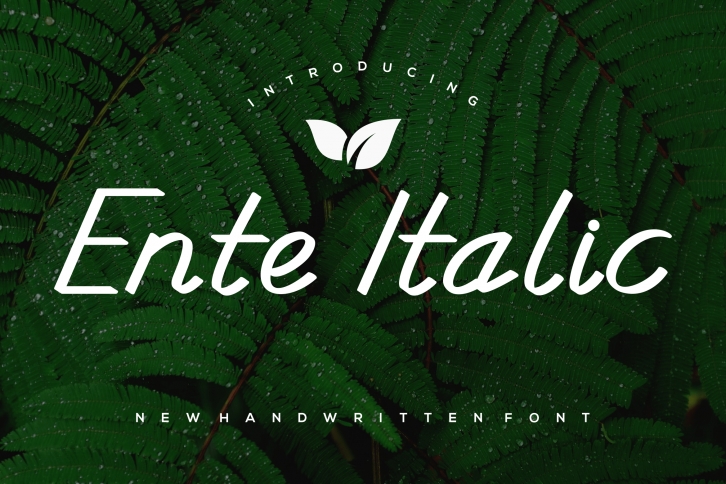
EnteItalic is a casual and neat handwritten font. Whether you’re using it for crafts, digital design, presentations, or making greeting cards, this font has the potential to become your favorite go-to font, no matter the occasion!